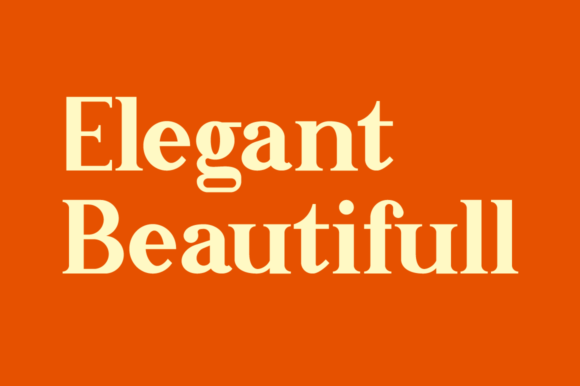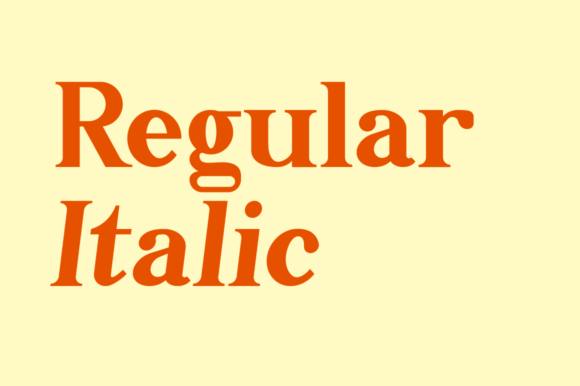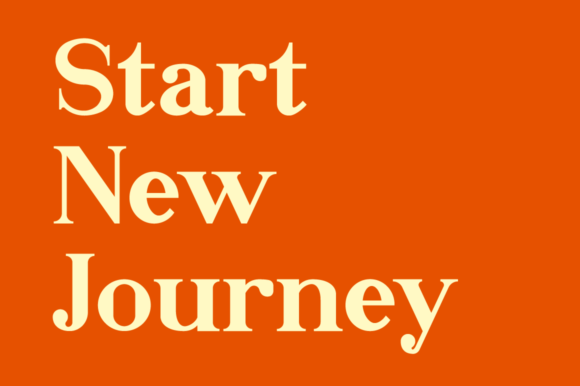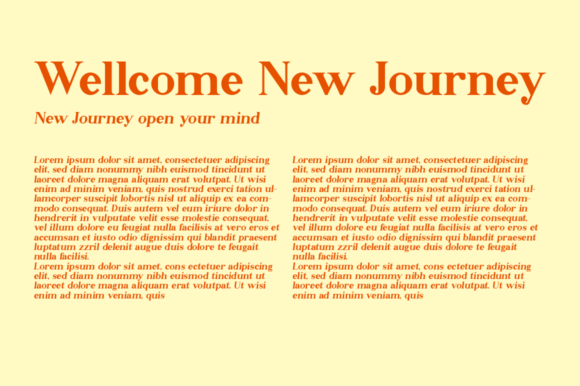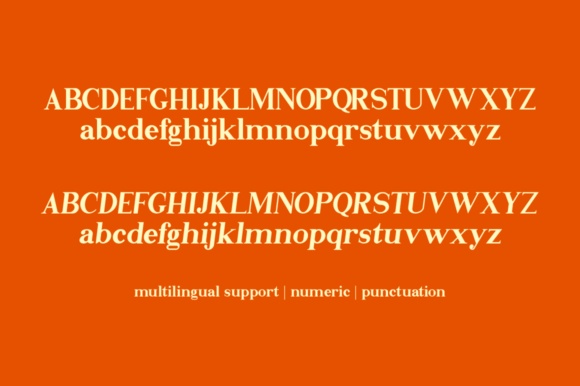
Introduction to Bwana Font
Bwana is a modern and sweet serif font with a very playful tone.
Add it to your creative ideas and notice how it makes them stand out .
Key Features of Bwana Font
Why Choose Bwana Font?
Bwana Font offers exceptional quality and versatility, making it a valuable addition to your design toolkit. Whether you’re creating for personal projects or commercial use, Bwana Font delivers professional results.